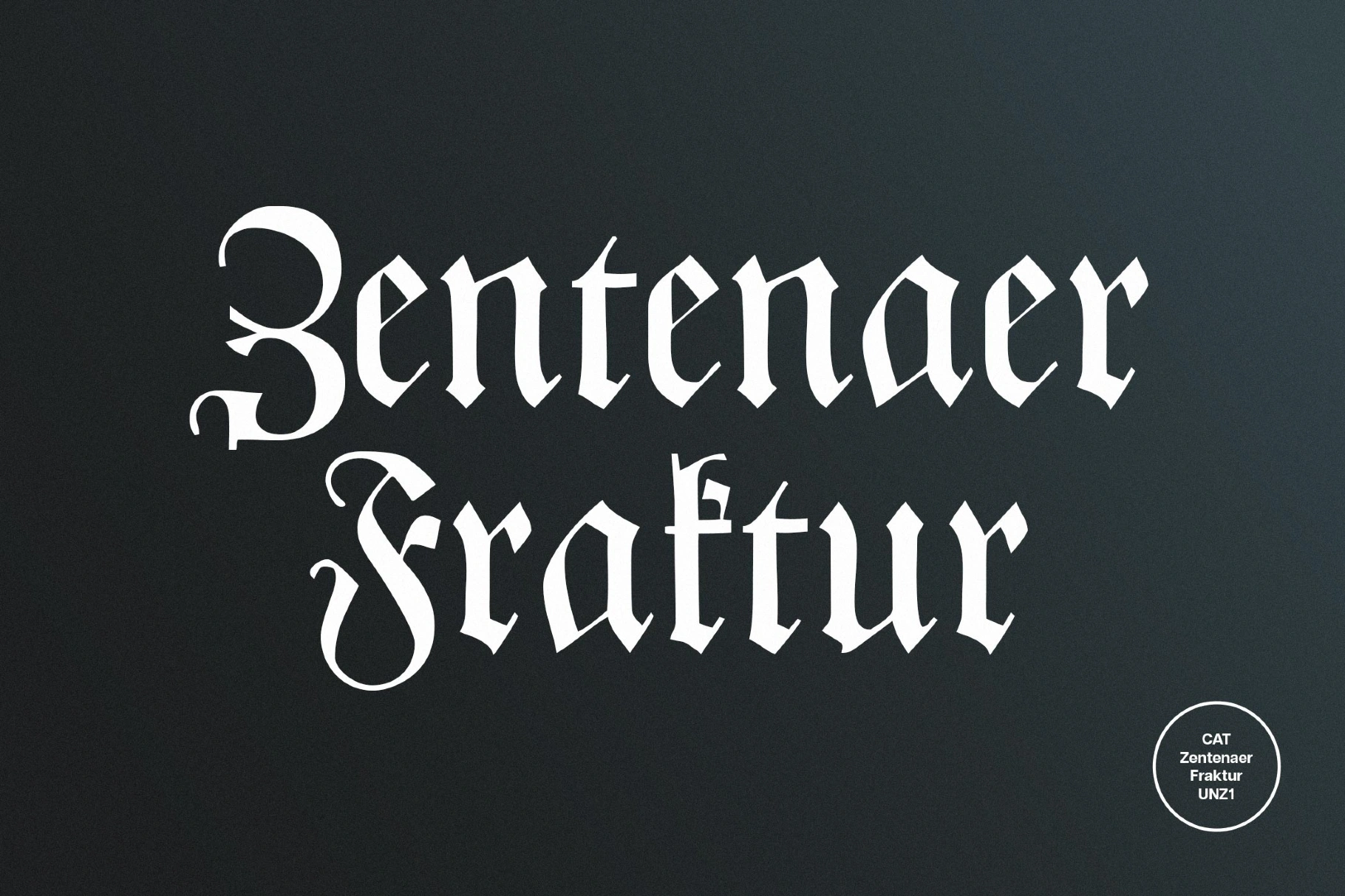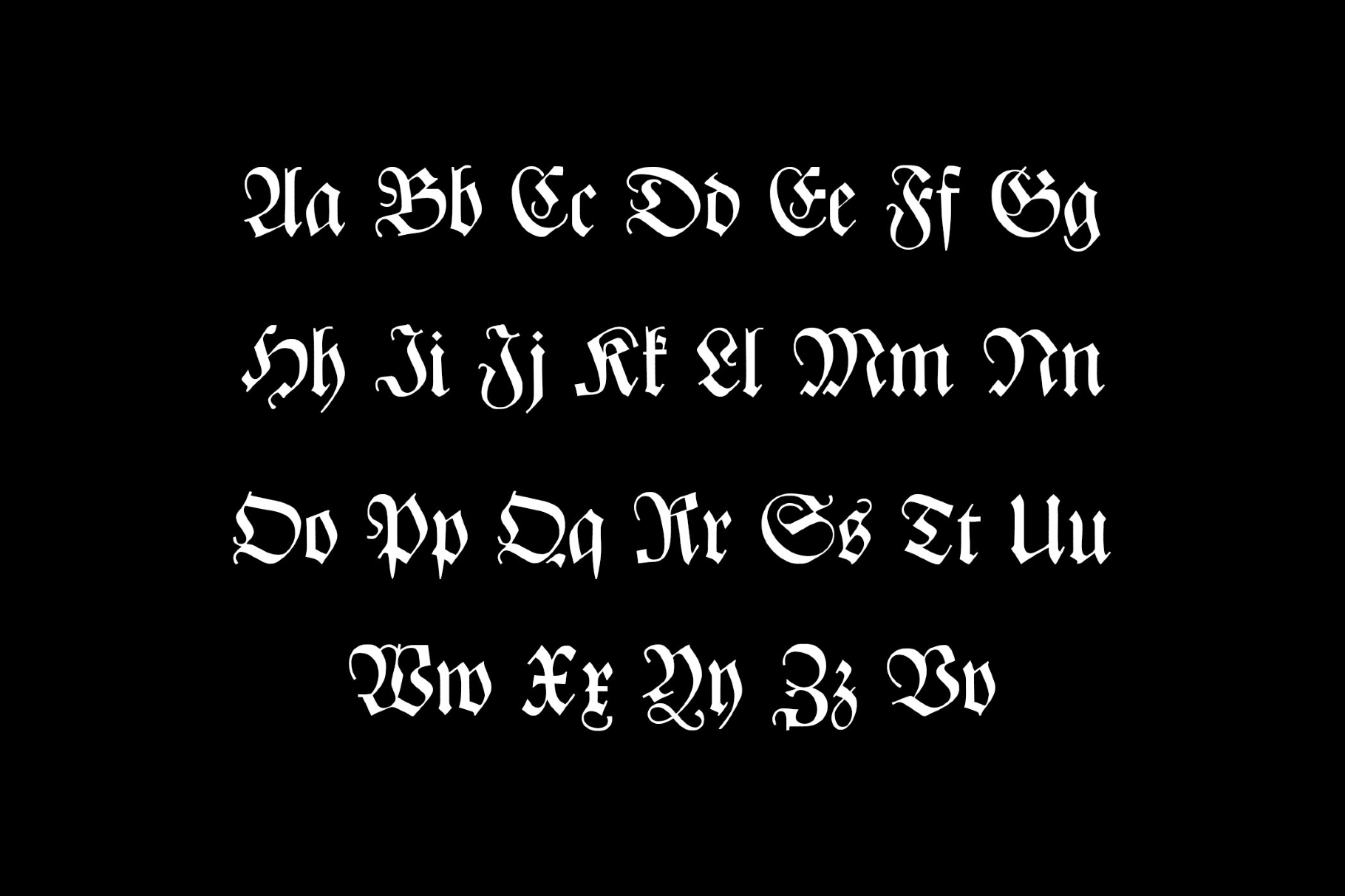
CAT Zentenaer Fraktur Font
This blackletter typeface revives a 1937 design by Friedrich Hermann Ernst Schneidler, originally created for the centennial of a Frankfurt type foundry. Zentenaer's strong vertical strokes, crisp broken curves, and compact spacing create a dense, historic texture with ornate capitals for large headings.
Uses:
- Book covers and chapter titles in historical fiction or academic publications.
- Posters for cultural festivals, exhibitions, and theater productions that reference German heritage.
- Branding for breweries, coffee roasters, barbershops, or tattoo studios.
- Packaging for specialty foods, small-batch beverages, or artisan goods.
- Certificates, diplomas, and event invitations.
- Music artwork for metal, folk, or neoclassical projects.
- Apparel graphics, label tags, and merch designs — for slogans, monograms, or emblematic wordmarks.
- Editorial spreads, museum signage, and wayfinding in heritage interiors.